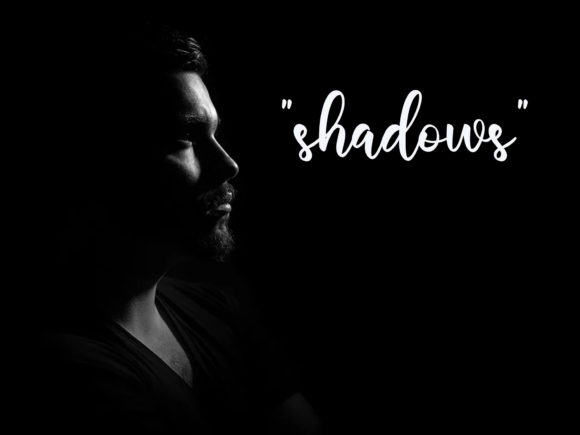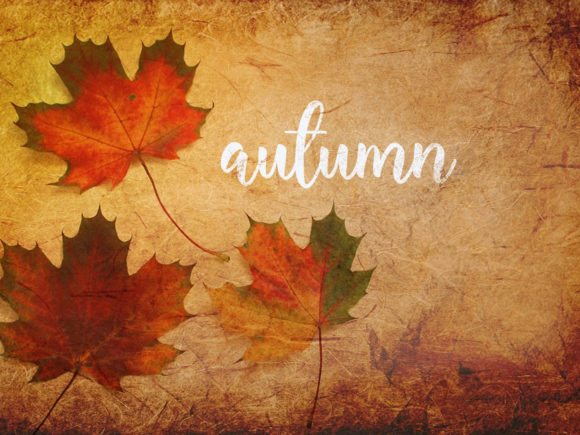
Baby Boho Font
db-ku.com - Script & Handwritten -- Baby Boho is a delicate handwritten font that is carefully crafted to produce cool and unique designs. This font can be used to write letters, invitations, food products and more.